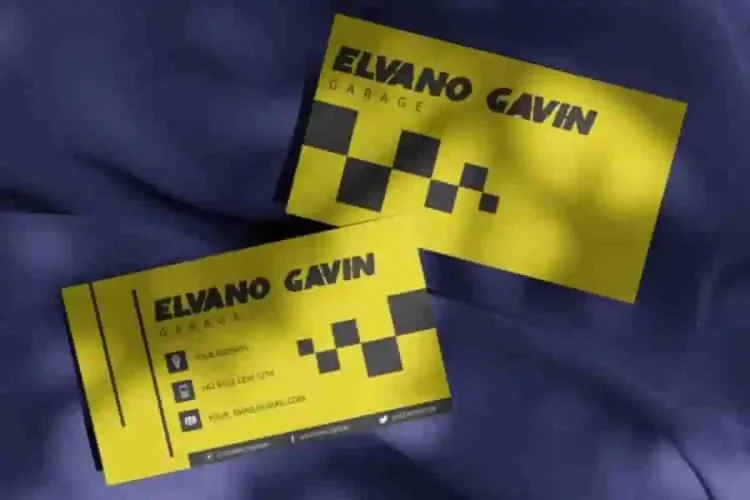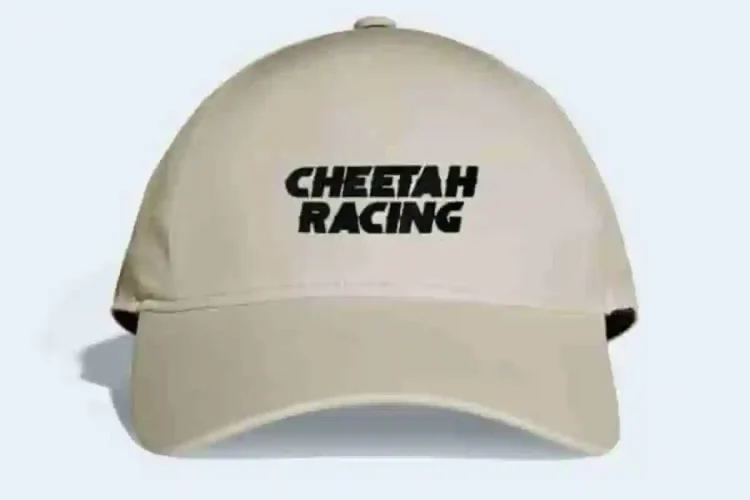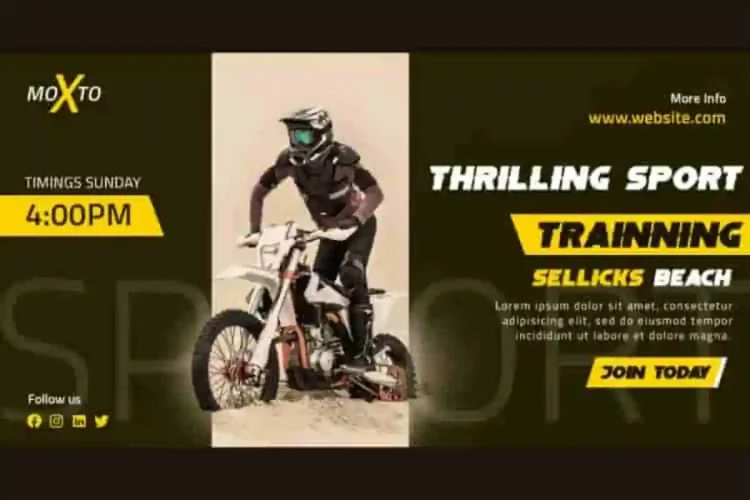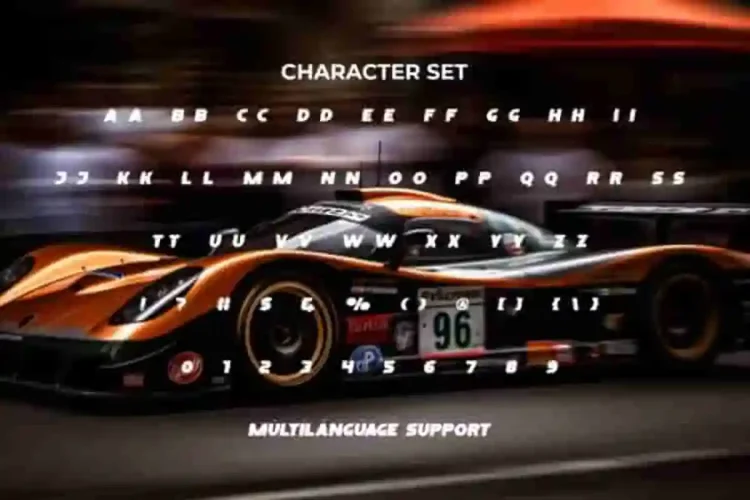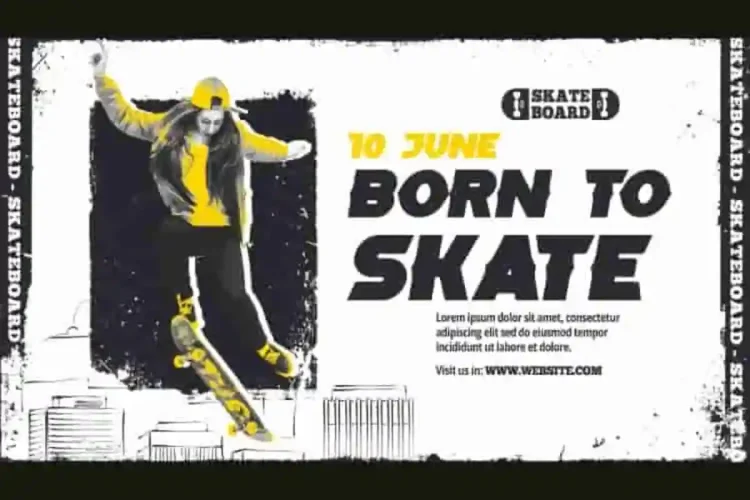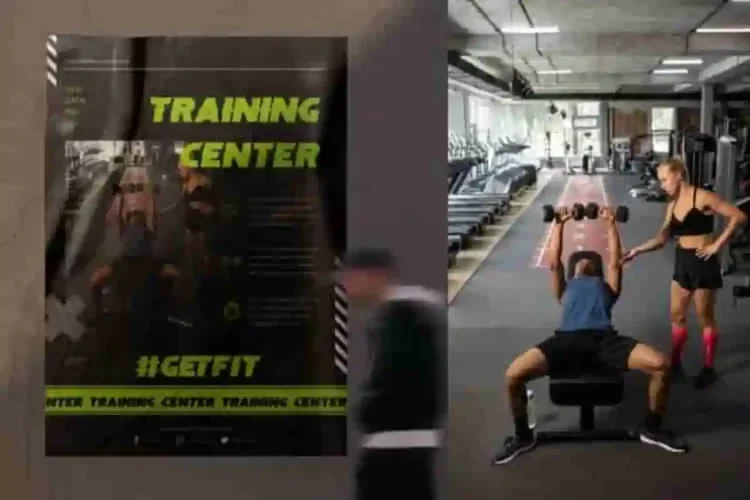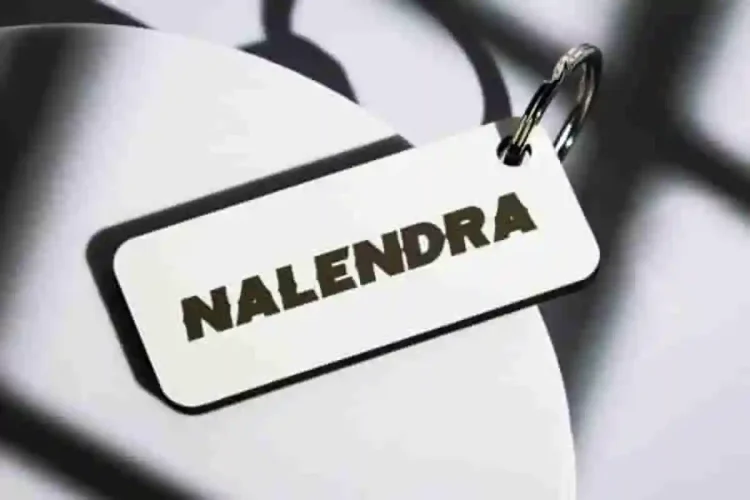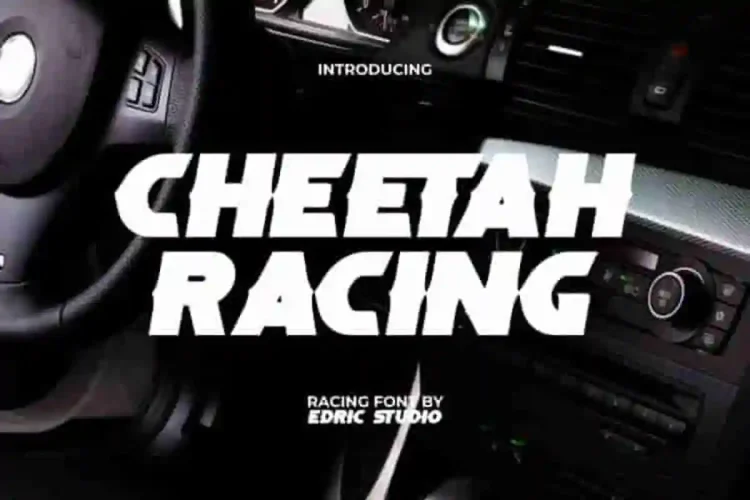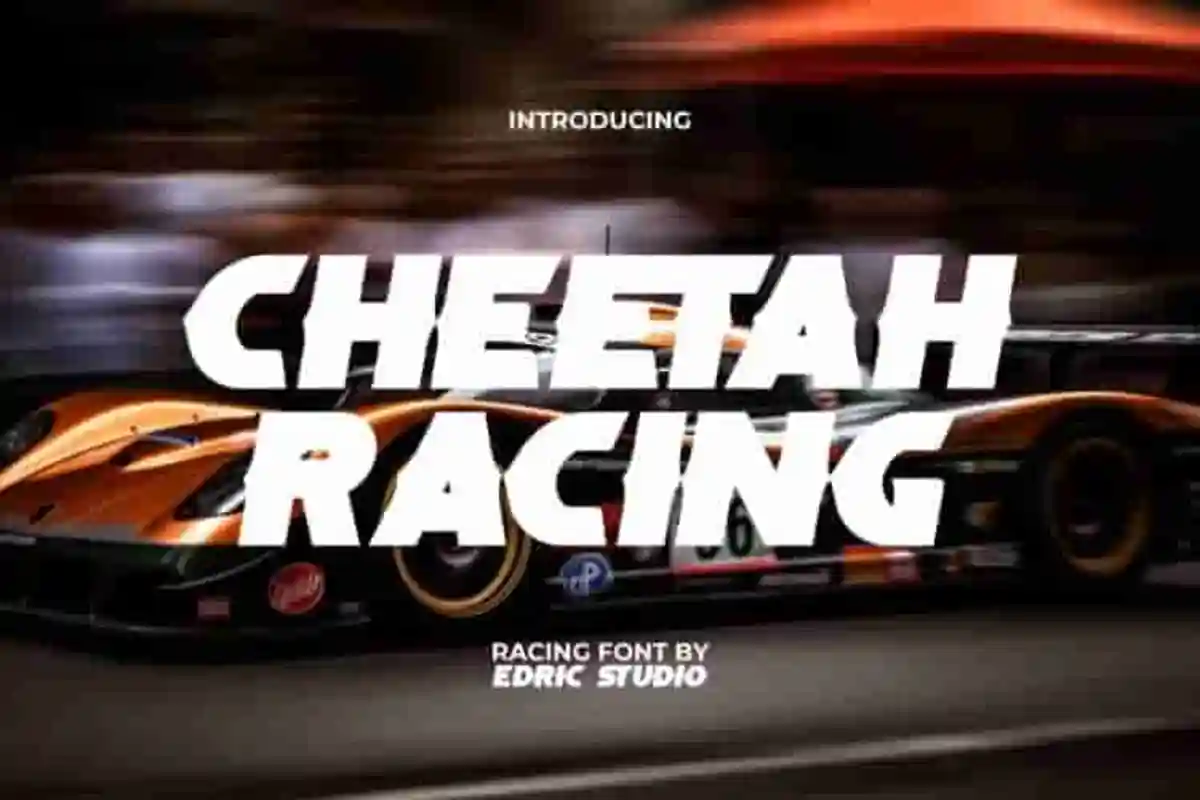
Cheetah Racing Modern Font looking for a bold, high-octane typeface that captures the thrill of speed and power? With its striking letterforms and fast-paced style, this font instantly commands attention, making it perfect for motorsport branding, apparel design, event promotions, and more.
Cheetah Racing Modern Display Font Packed with a full set of ALL CAPS characters, numbers, punctuation, and symbols, Cheetah Racing Font gives you everything you need to create bold and modern visuals. This font comes with its own unique style, taking your plans to the next level. Perfect for accessories and merchandise, adventure trail, automotive, clothing brand, event organizer, fashion, game, graphic designer, machine shop, motorsport event, races, skateboarding, sports, training center, and more.
Cheetah Racing Font a playful typeface with unique decoration in each character. Combine different characters for a bespoke, handcrafted feel. It’s tested to work well in the Adobe Apps (Illustrator, Adobe InDesign, Adobe Photoshop) even work on Microsoft Word. All of these characters are available through the glyph panel, moreover each letter has its own unicode (PUA) so you can access all the characters easily.